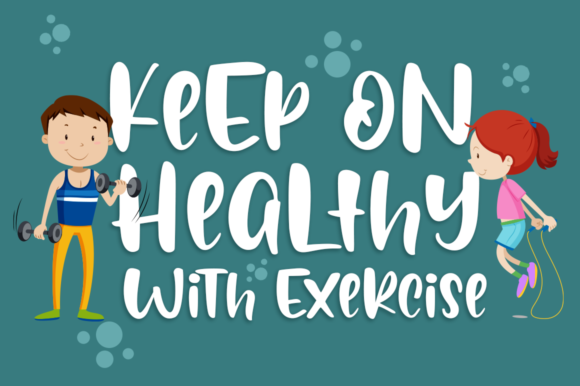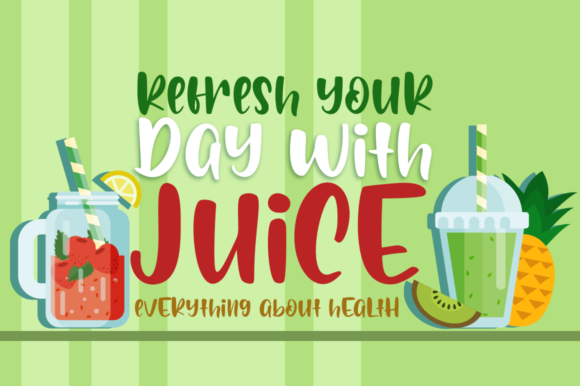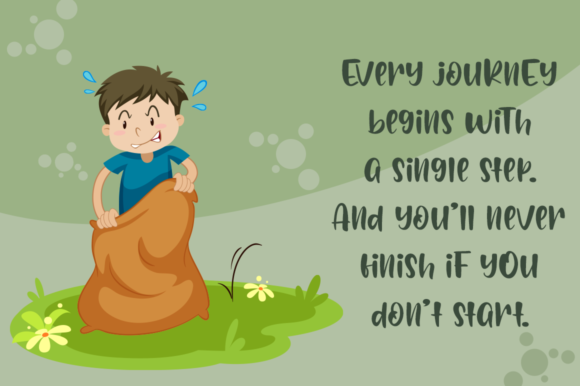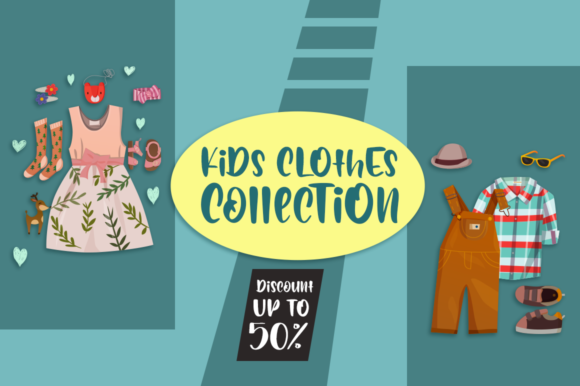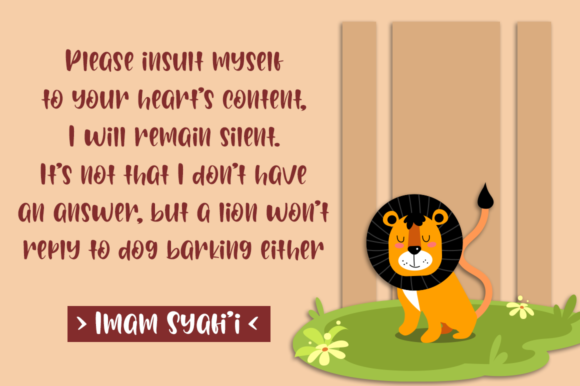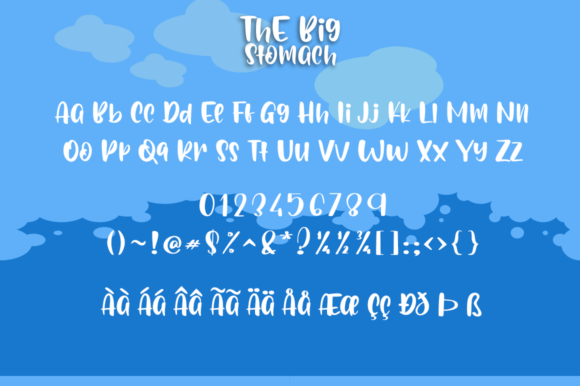
The Big Stomach Font: A Quirky Game-Changer for Creative Projects
I’ll never forget the time I was working on a whimsical craft project, pouring my heart and soul into it, but struggling to find the perfect font to match its playful vibe. That’s when I stumbled upon Big Stomach, a handwritten font that instantly clicked with me. Its unique charm and quirky personality brought my project to life, and I knew right then that I had to share it with fellow designers and creatives.
What I Love About Big Stomach ✨
• ✅ Authentic Handwritten Feel: Big Stomach embodies the imperfections and warmth of handwritten text, making it perfect for projects that require a personal touch.
• ✅ Quirky and Fun: This font is not your average, run-of-the-mill typeface. It’s playful, fun, and sure to grab attention.
• ✅ Versatile: Whether you’re working on a craft project, a branding campaign, or a social media graphic, Big Stomach can adapt to various design needs.
• ⚠️ Legibility at Small Sizes: Like many handwritten fonts, Big Stomach can become a bit tricky to read at very small sizes. It’s best used at larger sizes where its unique charm can shine.
• ⚠️ Limited Formality: Due to its playful nature, Big Stomach might not be the best fit for projects requiring a high level of formality or professionalism.
The Story Behind Big Stomach: Designer Inspiration
Big Stomach was born from a passion for authentic, handcrafted design. Its creator, inspired by traditional lettering and the imperfections of handwritten text, sought to craft a font that felt both modern and nostalgic. Through careful attention to detail and a love for the quirky and unique, Big Stomach came to life.
Q: Is Big Stomach suitable for body text?
A: While Big Stomach is stunning for headings and titles, its readability at smaller sizes may make it less ideal for body text. However, for short paragraphs or creative projects, it can still work beautifully.
Q: Does Big Stomach support OpenType features?
A: Yes, Big Stomach supports various OpenType features, including ligatures and stylistic alternates, allowing for a high degree of customization and creativity.